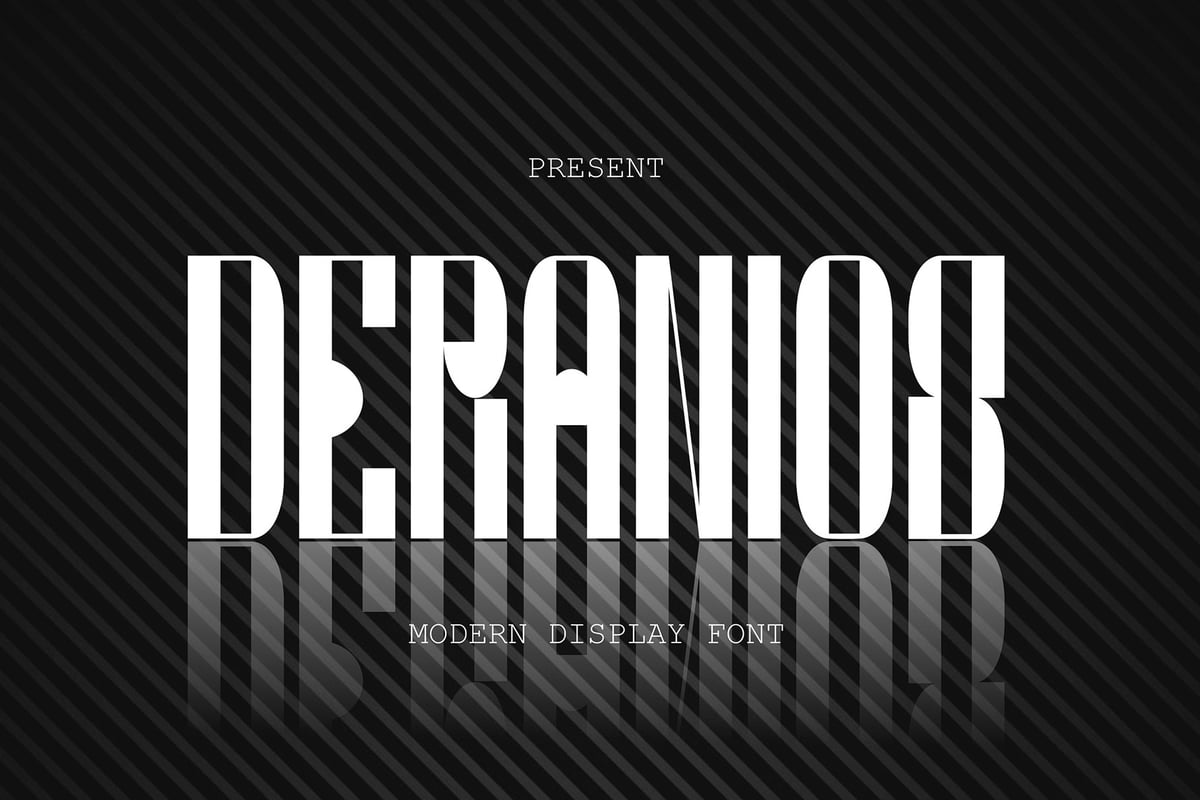
Deranios
Unleash bold sophistication with Deranios, a modern display sans serif designed for impact and elegance. Featuring clean lines, geometric precision, and subtle curves, Deranios is the perfect choice for brands, editorial projects, and high-end designs. Now with an italic version, Deranios offers even more versatility—perfect for adding dynamic contrast and emphasis to your typography. Whether for logos, headlines, packaging, branding, or posters, this font delivers a sleek, contemporary aesthet